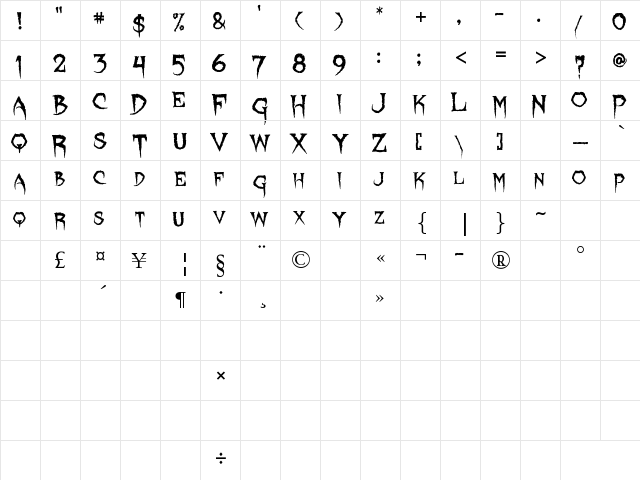
Lycanthrope Regular
| Foundry | Sinister Visions inc. and Sinister Fonts |
| Designer | Chad Savage |
Design Context for Lycanthrope Typeface
Lycanthrope is a composed and adaptable typeface that performs quietly and consistently across a wide range of design contexts.